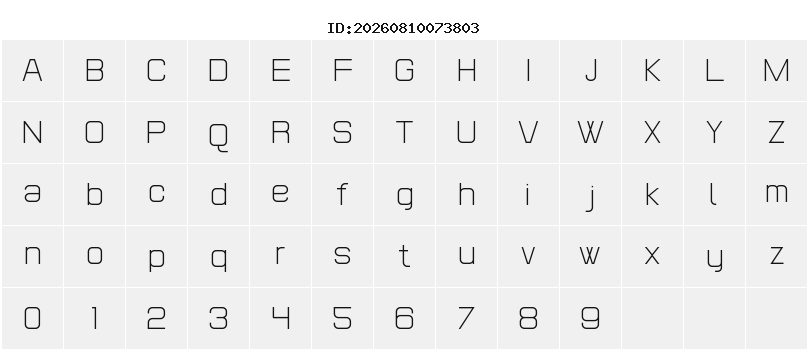
• Font Name: POE Headline
• Designer: Daniel Lyons
• Manufacturer: Powerhouse of Entertainment
• Description: A bespoke typeface for The Powerhouse of Entertainment
About POE Headline.ttf
POE Headline.ttf is a modern, elegant sans-serif font designed for ultimate readability and visual harmony. Perfect for branding, headlines, web design, and print materials.